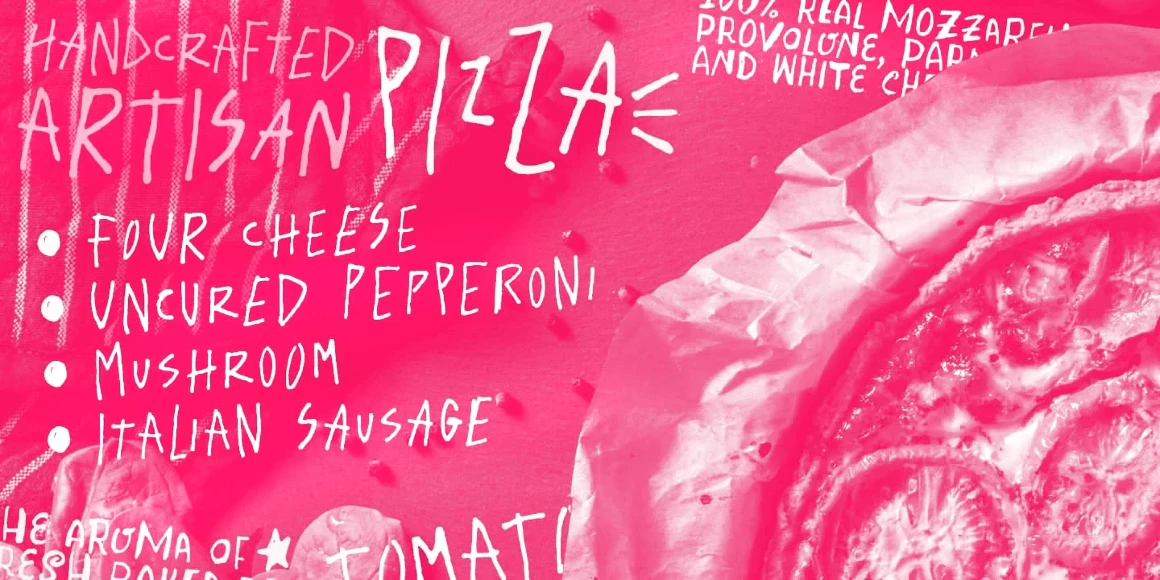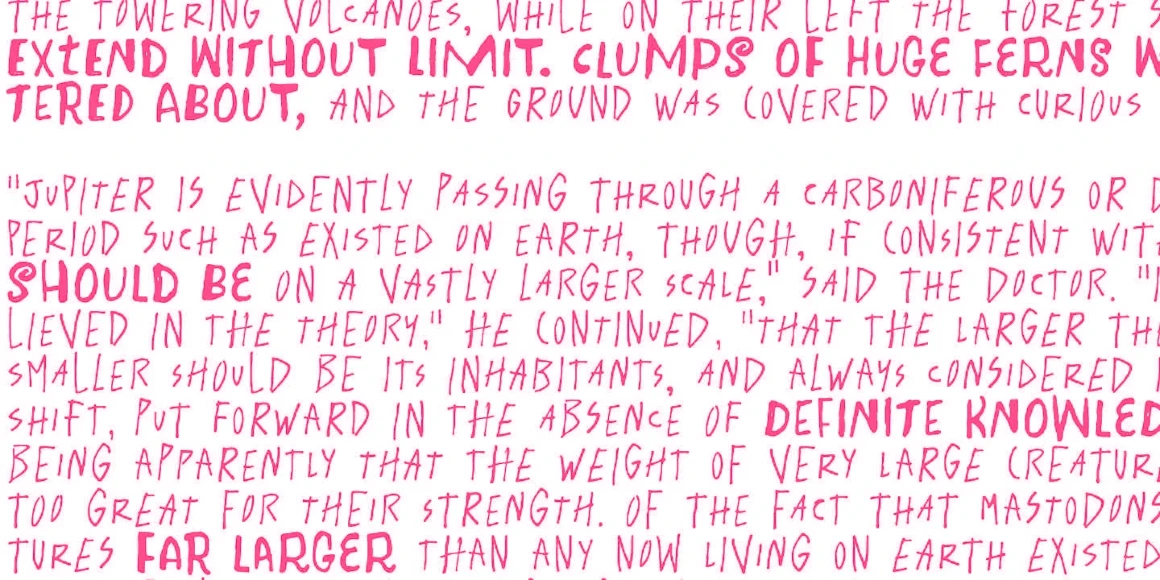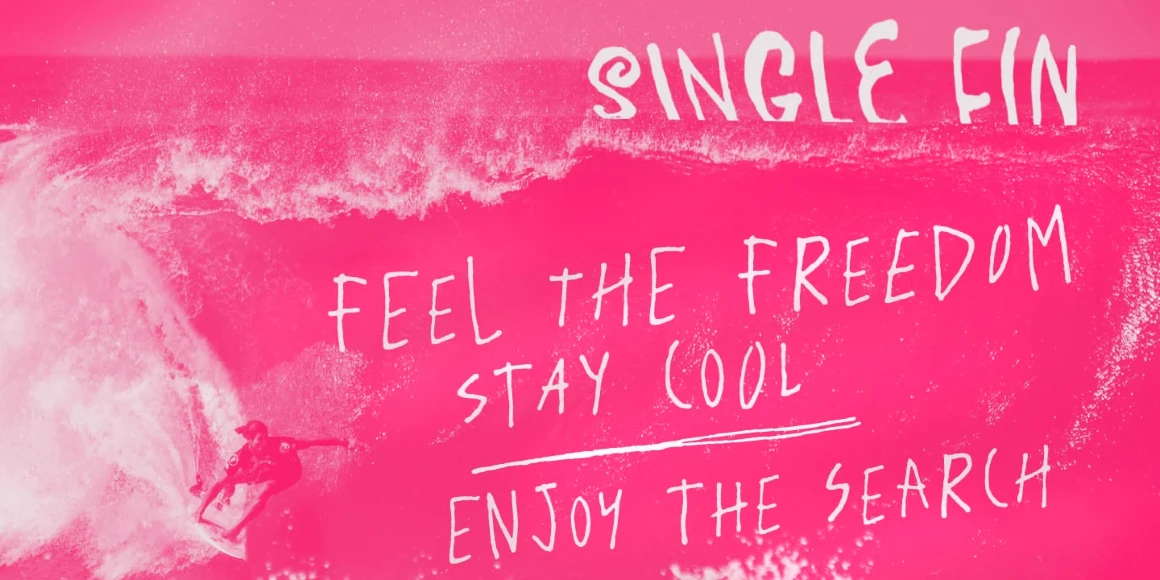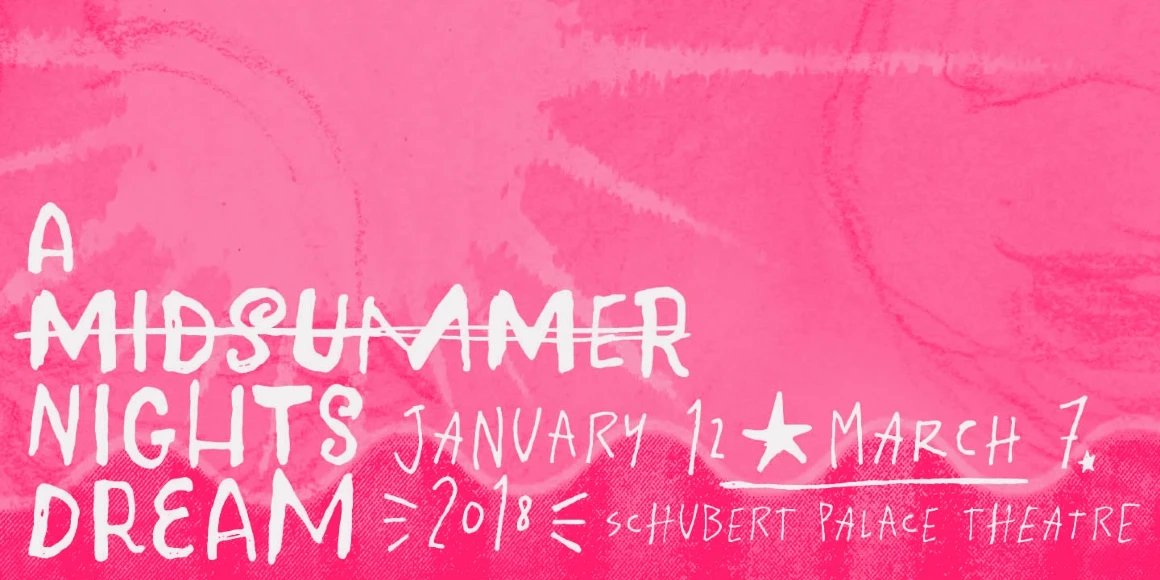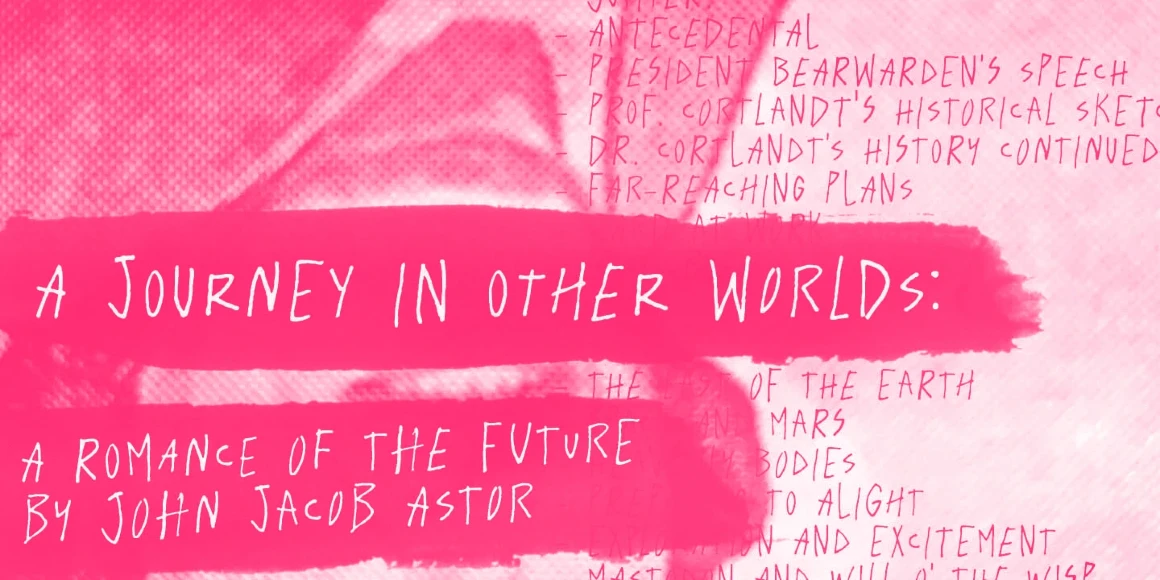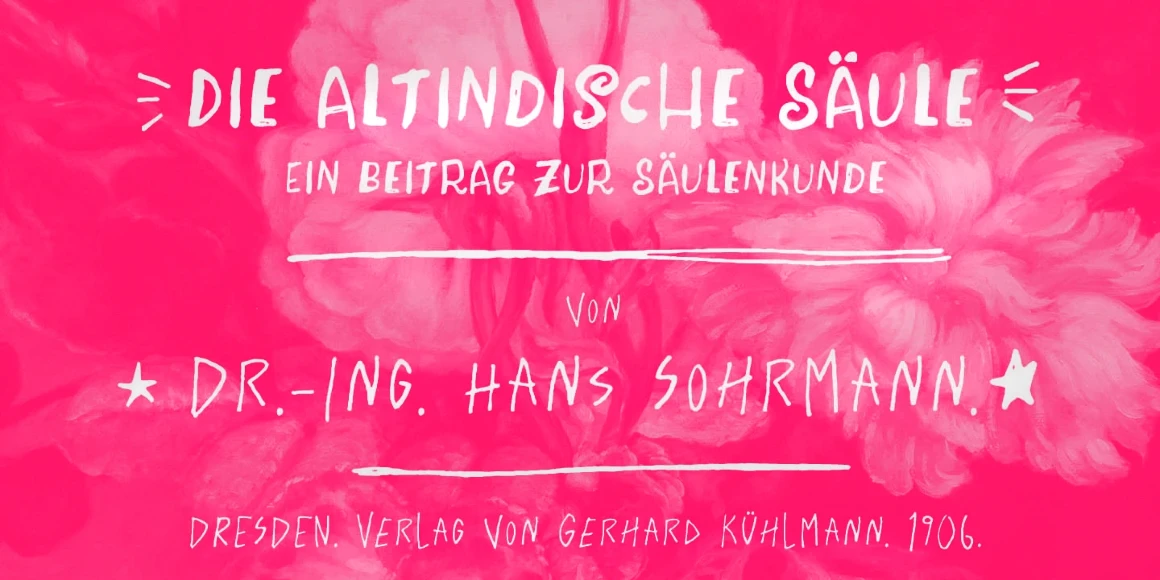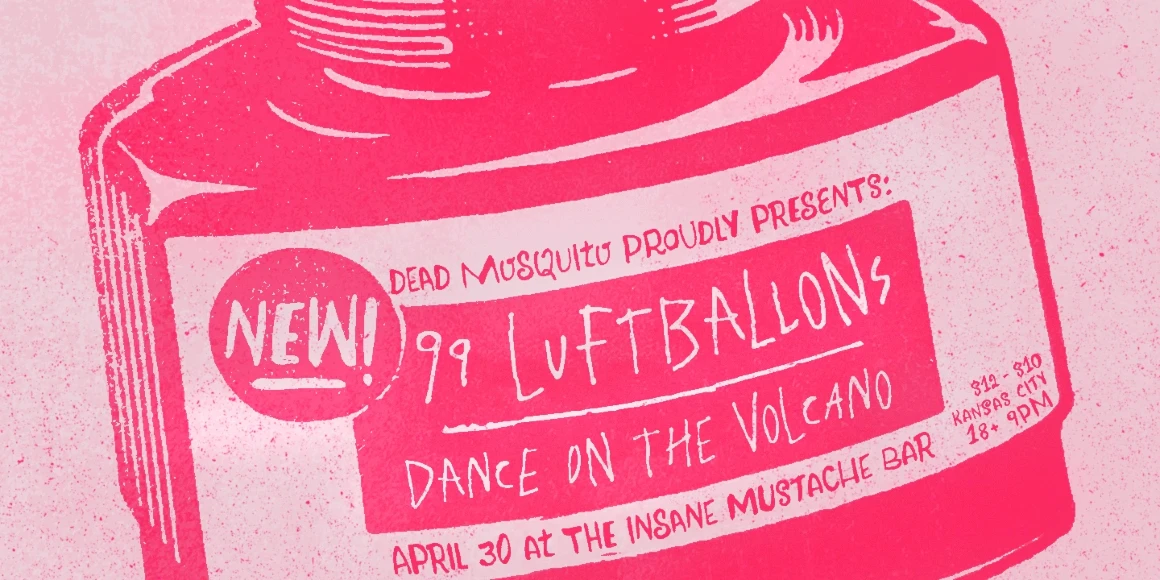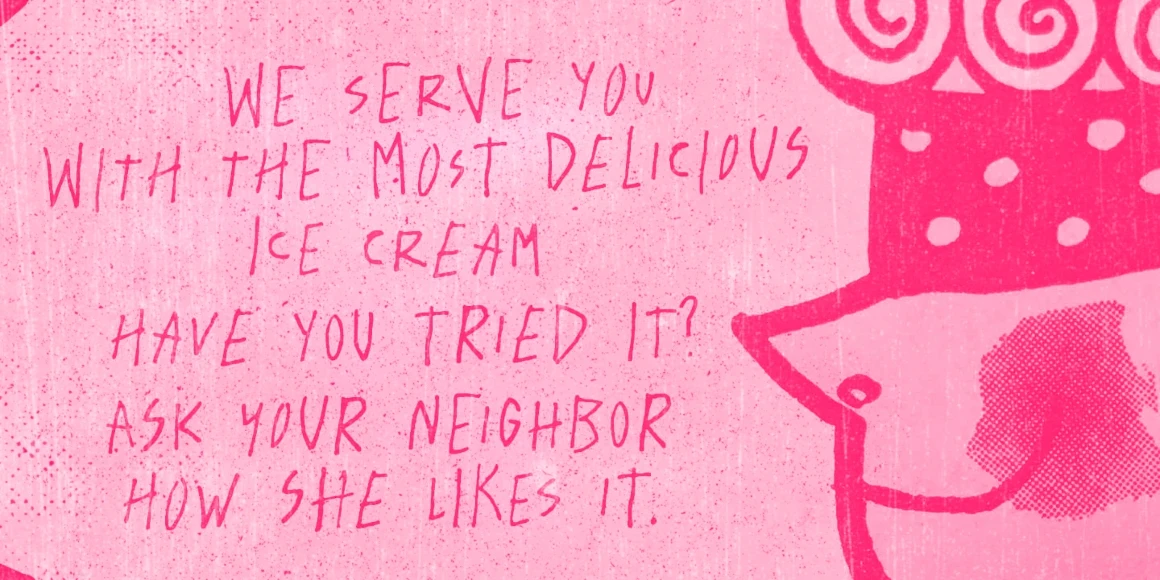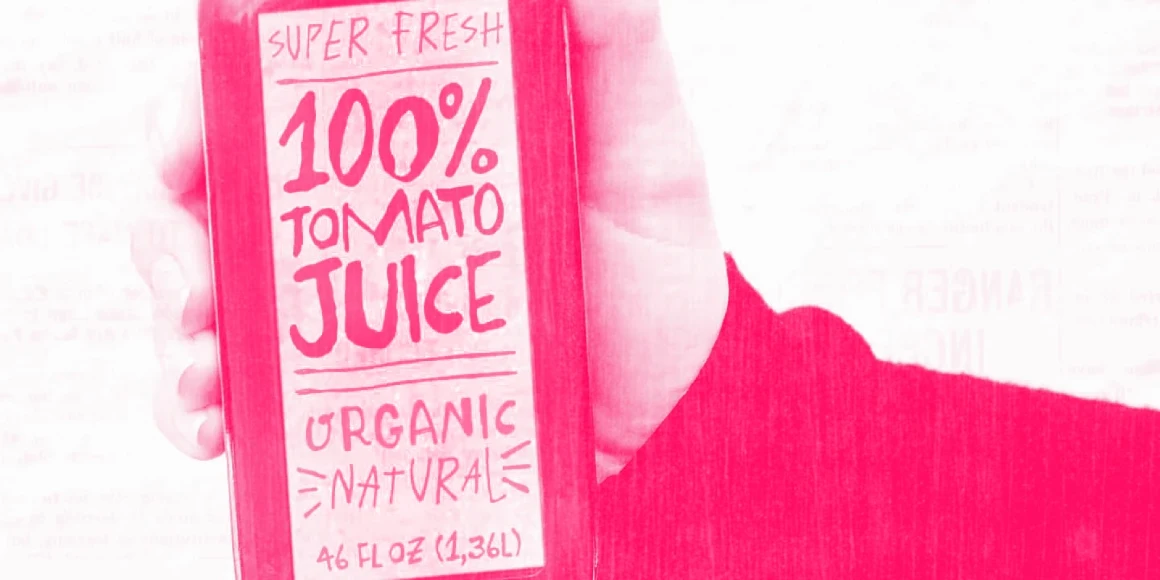
Plact
Plact Regular
Plunct & Plact are a duo of wildly dissimilar hand-scrawled typefaces. Think of Plunct as a lanky, light, scratchy pen, and Plact, on the other hand, is like a pointed marker. Both brimming with lettered personalities, they have a sense of urgency that can’t wait to make an impact. Together, this pairing offers a dynamic range of contrast and cohesion, ideal for headlines, posters, books, packaging, or anywhere you want to lean into the eccentric with both a whisper and a shout.